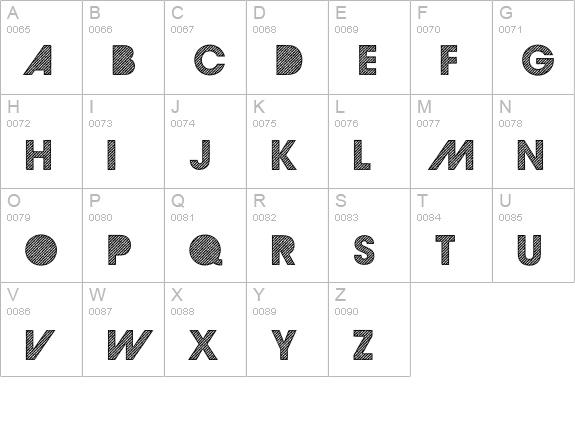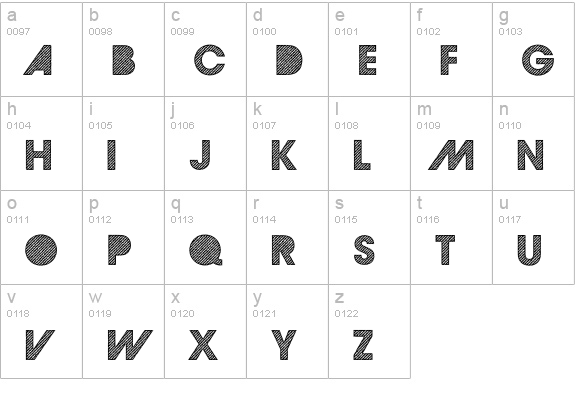
GoodMorningAfternoonDEMO Font Details
GoodMorningAfternoonDEMO is a stunning font that embodies the perfect blend of elegance and modernity. With its unique and eye-catching design, this font will surely capture the attention of anyone who lays eyes on it. Its beautifully crafted letters are carefully balanced, making it a versatile choice for various design projects. This font is not only visually appealing but also incredibly easy to read. Its clean and crisp lines ensure that each character is distinct and legible, even at smaller sizes. Whether used for headlines, body text, or logos, GoodMorningAfternoonDEMO will effortlessly enhance any project. One of the best things about GoodMorningAfternoonDEMO is that it is available for free. Yes, you heard it right! This exceptional font can be downloaded without any cost at FontsMarket.com. It is a fantastic opportunity for designers, students, and anyone in need of a high-quality font without breaking the bank. By offering GoodMorningAfternoonDEMO for free, FontsMarket.com aims to make this incredible font accessible to everyone. It eliminates any barriers that may prevent designers from using this font to bring their creative visions to life. With just a few clicks, you can get your hands on this remarkable font and start incorporating it into your projects. The versatility, elegance, and affordability of GoodMorningAfternoonDEMO make it a must-have font for any designer's toolkit. Whether you are working on a website, poster, branding, or any other design project, this font will undoubtedly elevate your work to new heights. Don't miss out on the opportunity to download GoodMorningAfternoonDEMO for free at FontsMarket.com. Start using this exceptional font today and experience the endless creative possibilities it offers.